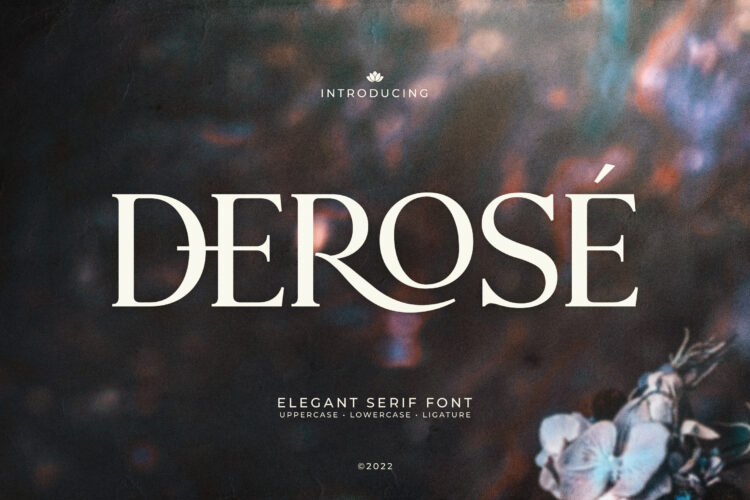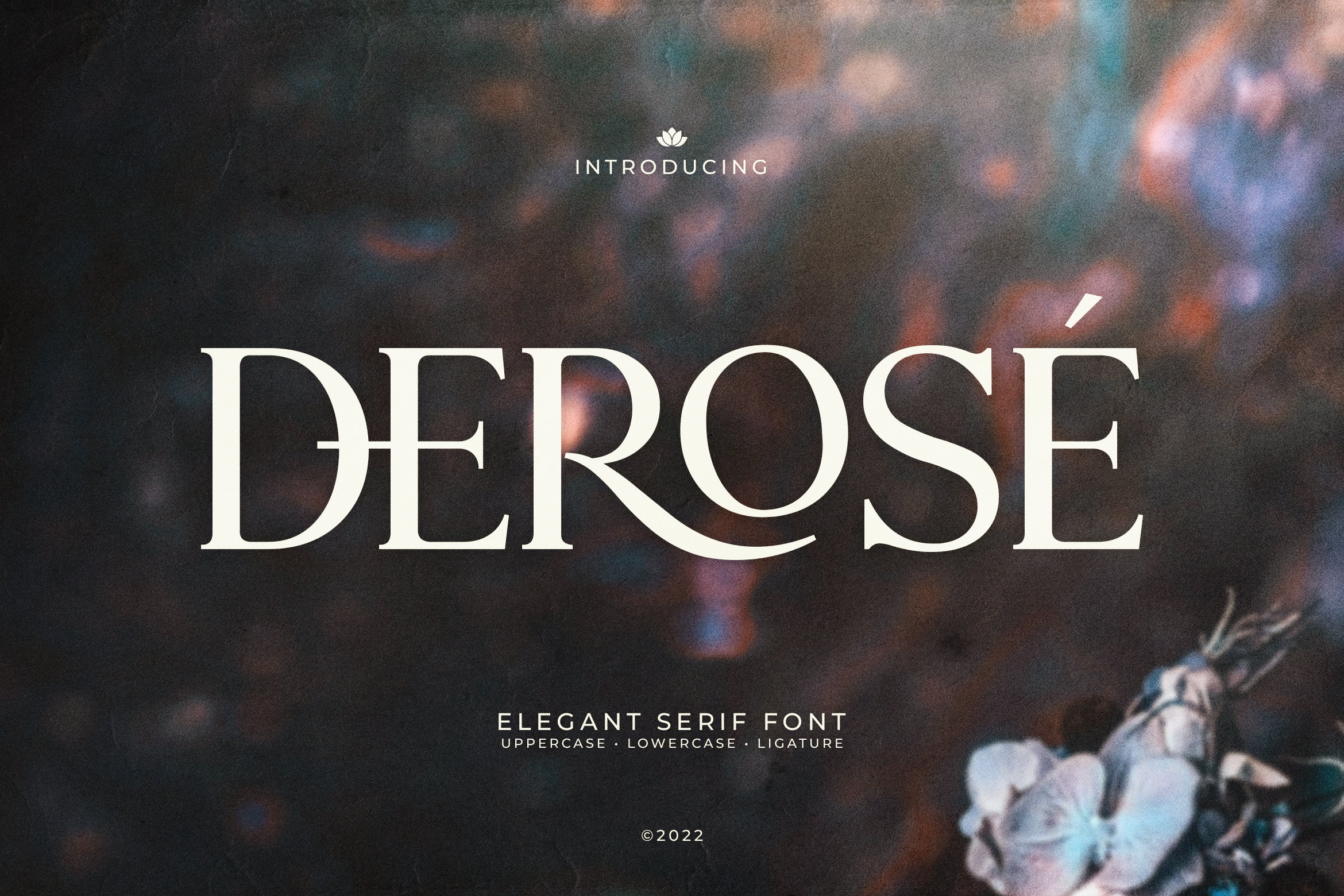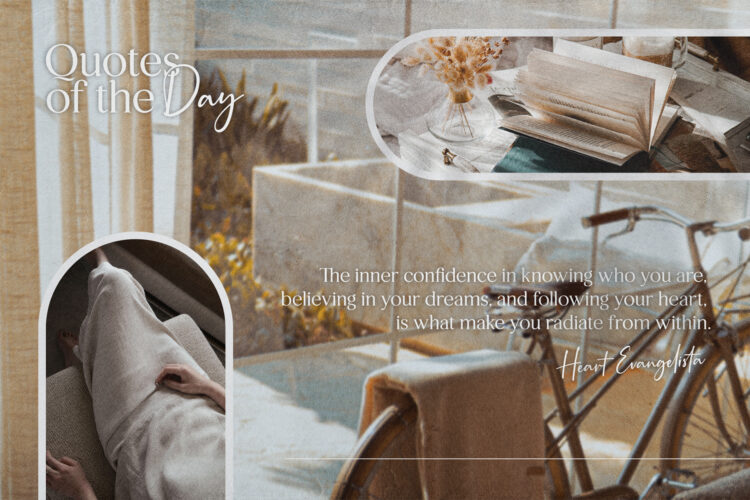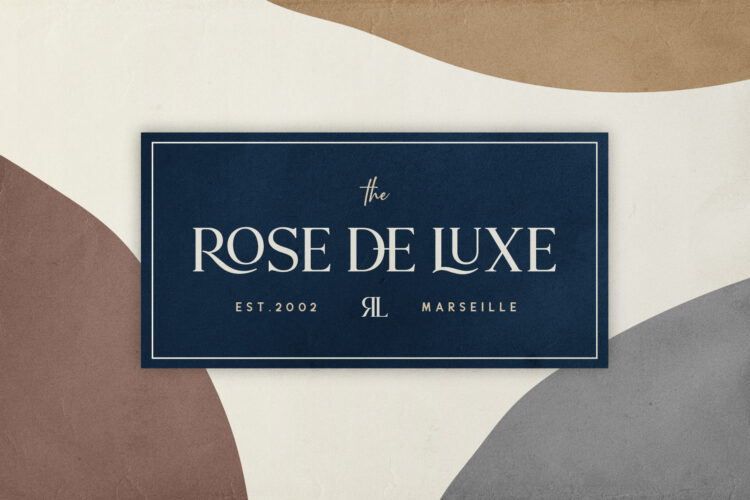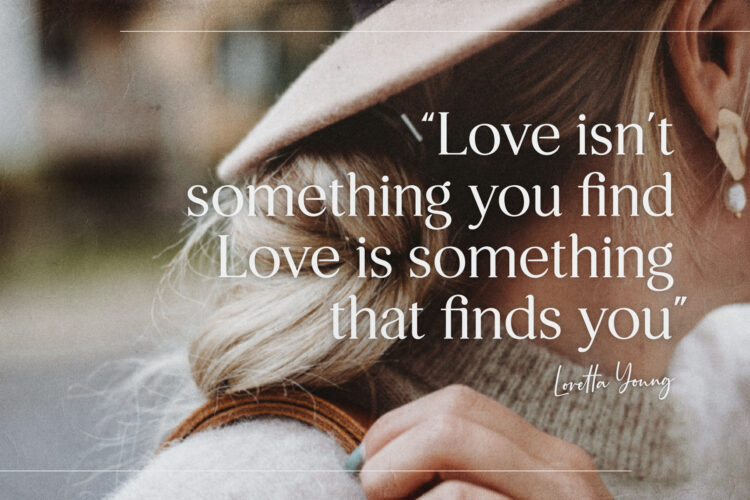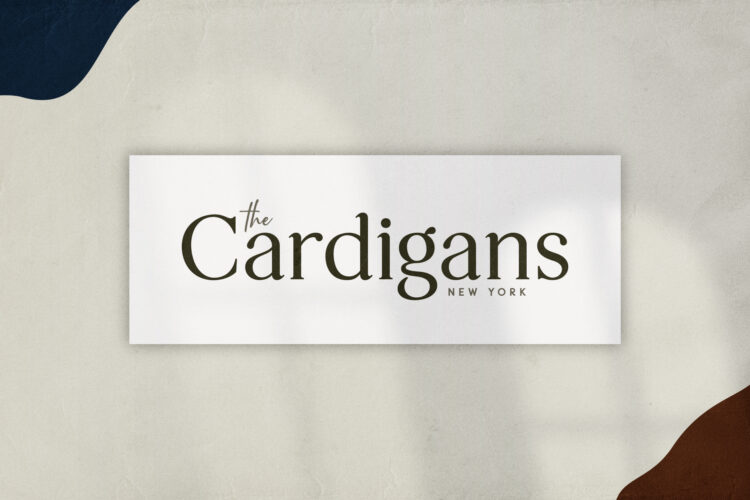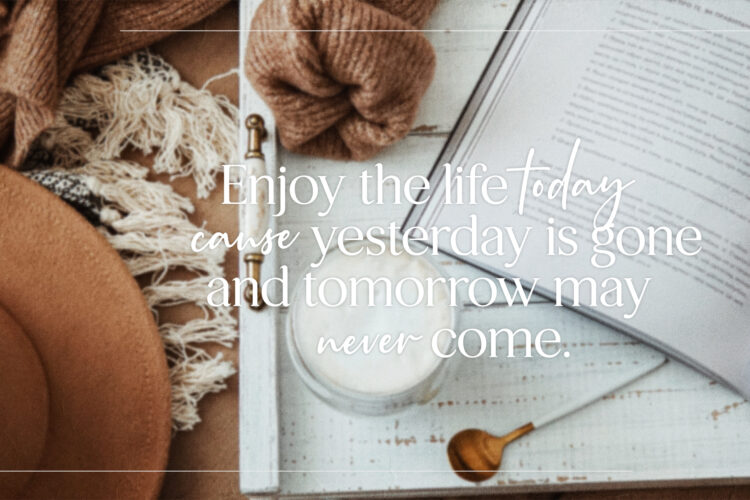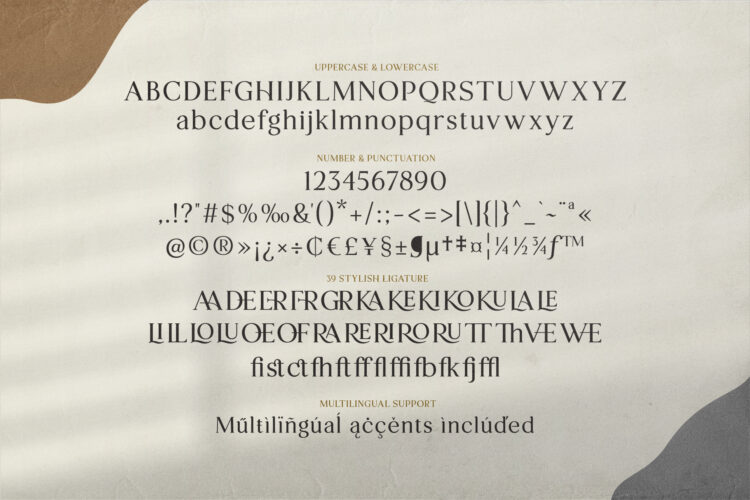
DEROSÉ is a sophisticated and luxurious serif font designed to elevate your brand with timeless elegance.
Featuring a blend of classic serif structure and modern ligatures, DEROSÉ exudes style, making it ideal for high-end branding, fashion editorials, magazine layouts, wedding stationery, and upscale product packaging.
The unique ligatures and subtle curves add a custom feel to every project, while its multilingual support ensures global versatility.
Whether you’re working on a logo or a luxury print, this font will leave a lasting impression.
DEROSÉ – Elegant Serif Font